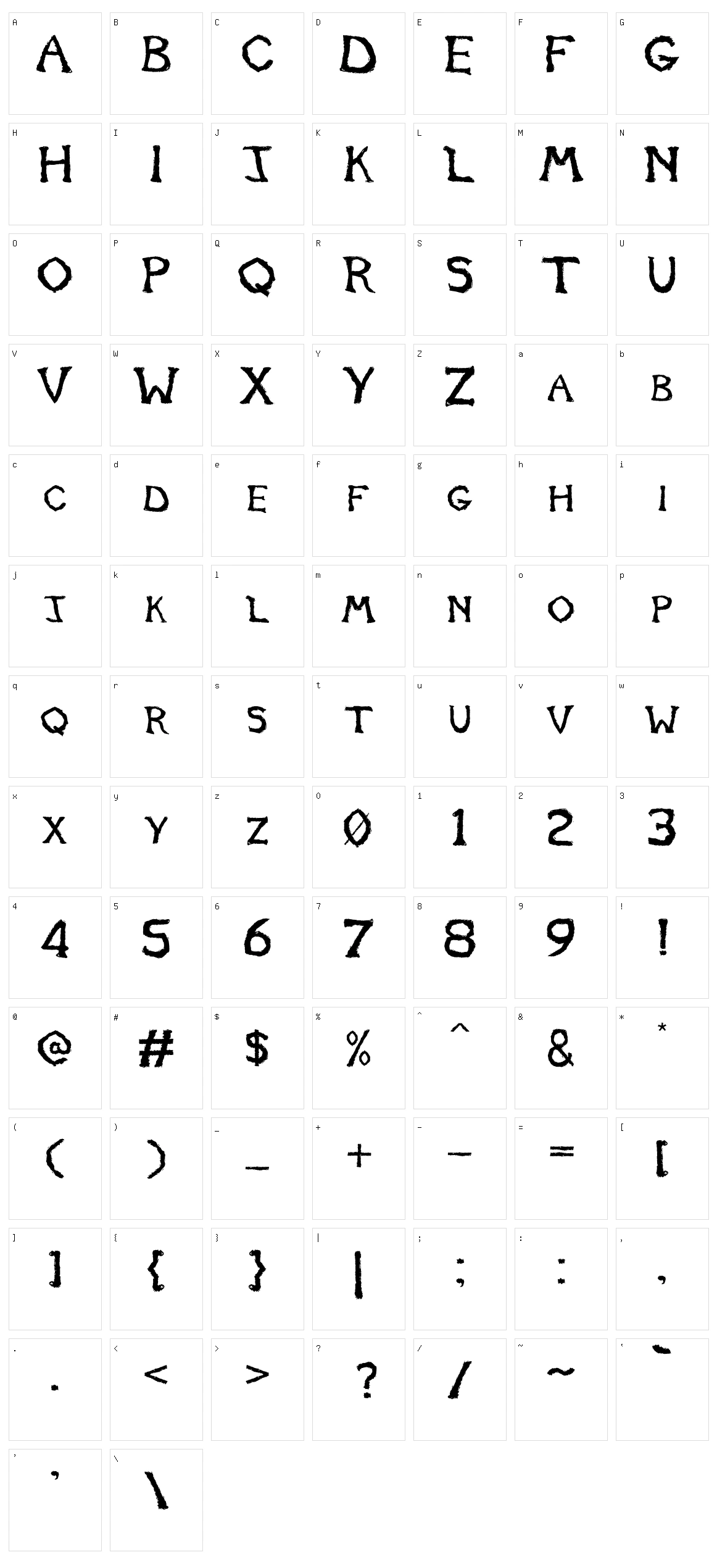
The free font Tomb 2013 is carefully designed by Juicy Chewitt, showcasing a thoughtful balance of creativity and usability and falls under the Eroded font style. When you download the ZIP file, it contains only 67.88 KB of font files, making it lightweight and quick to download. Please review the license details below to understand permitted usage and distribution rights. If license information is not available, we recommend using this font for personal projects only or contacting the author directly for commercial usage permissions.